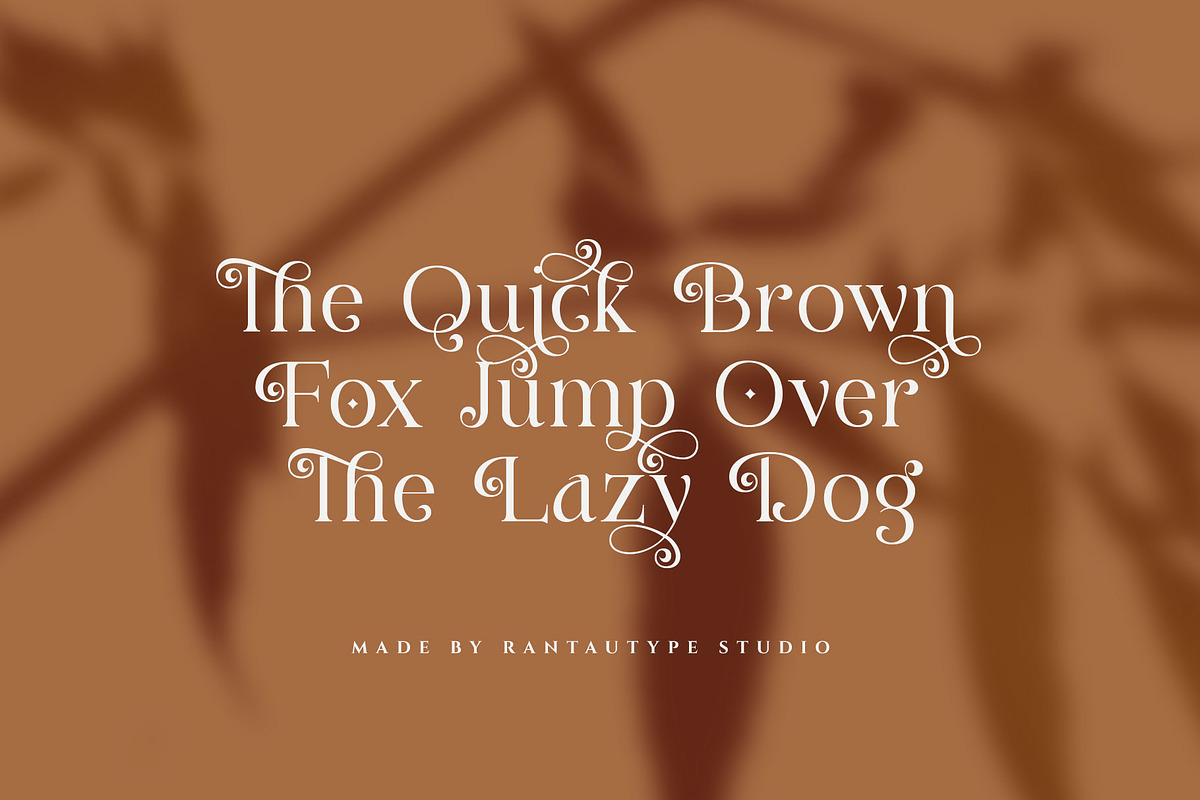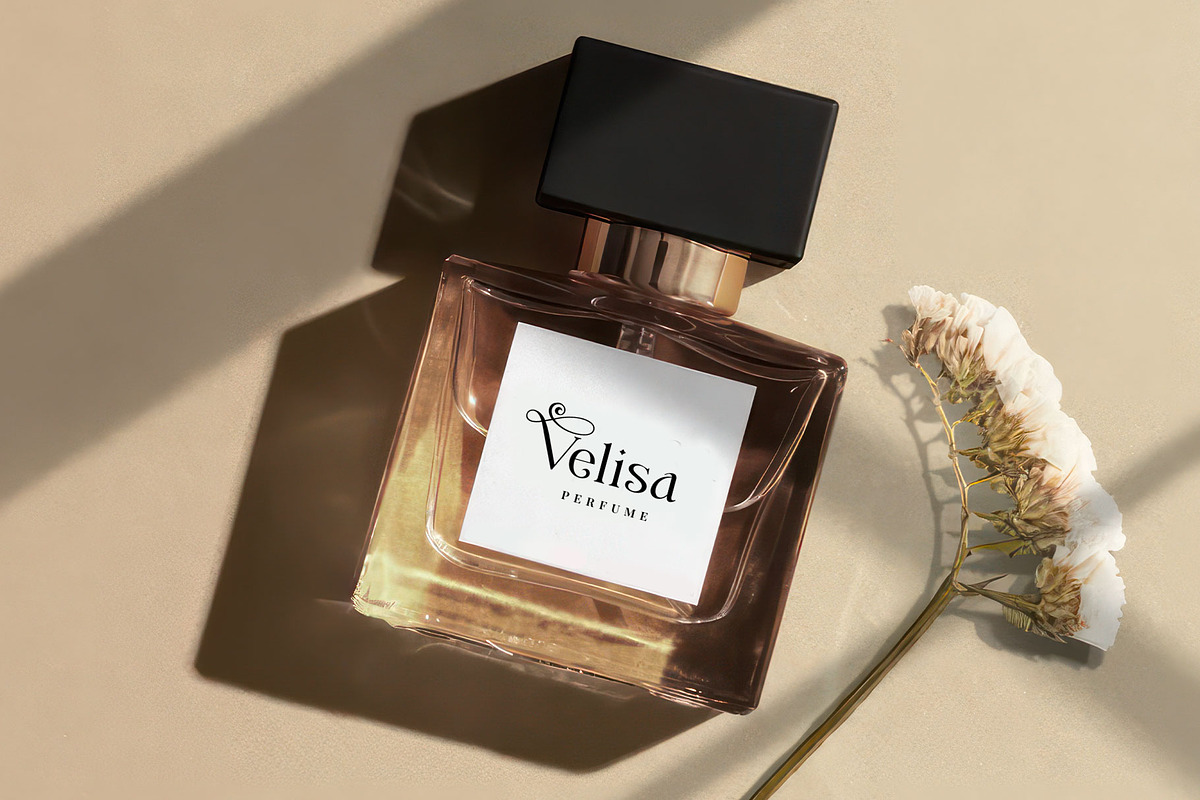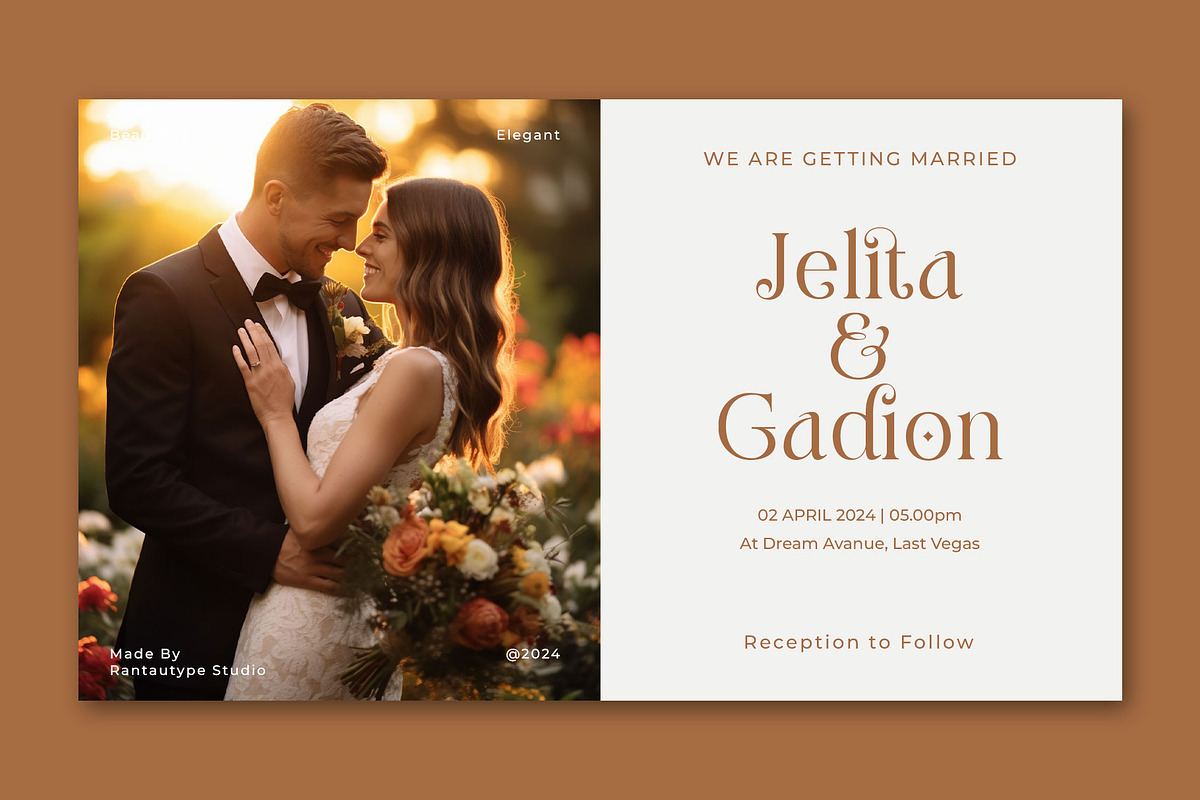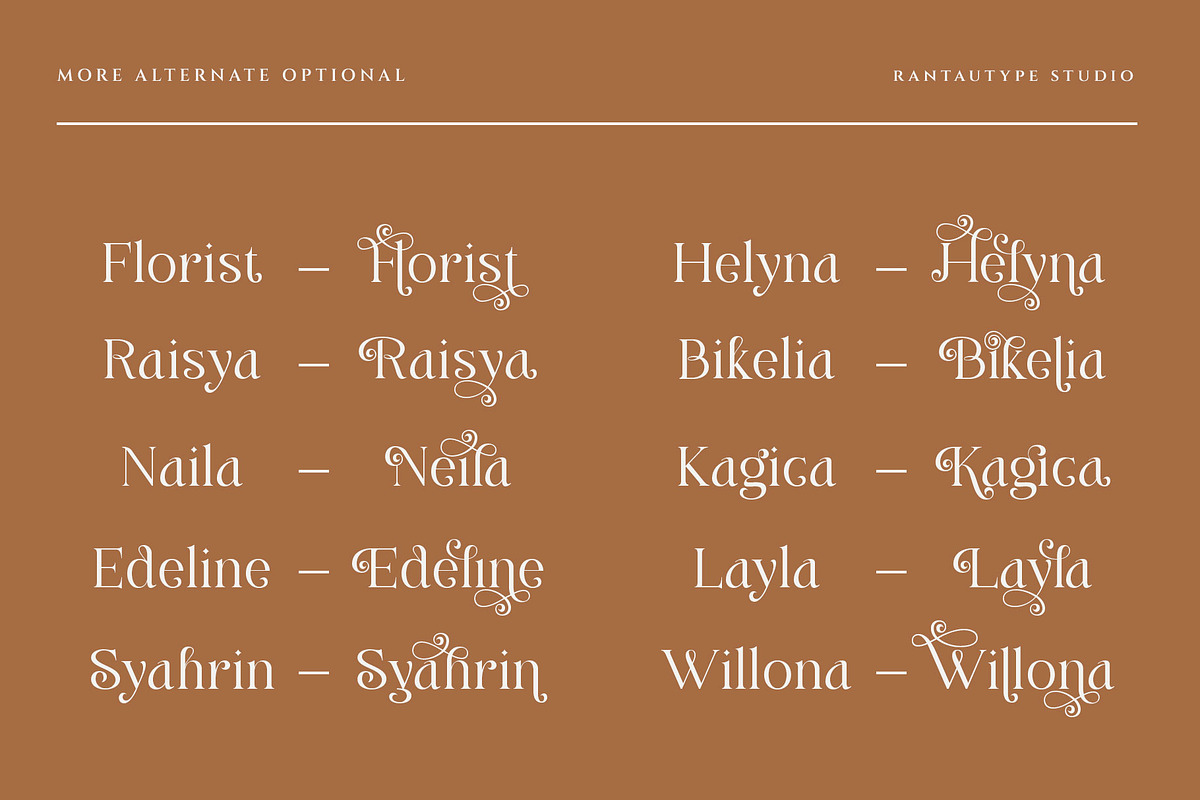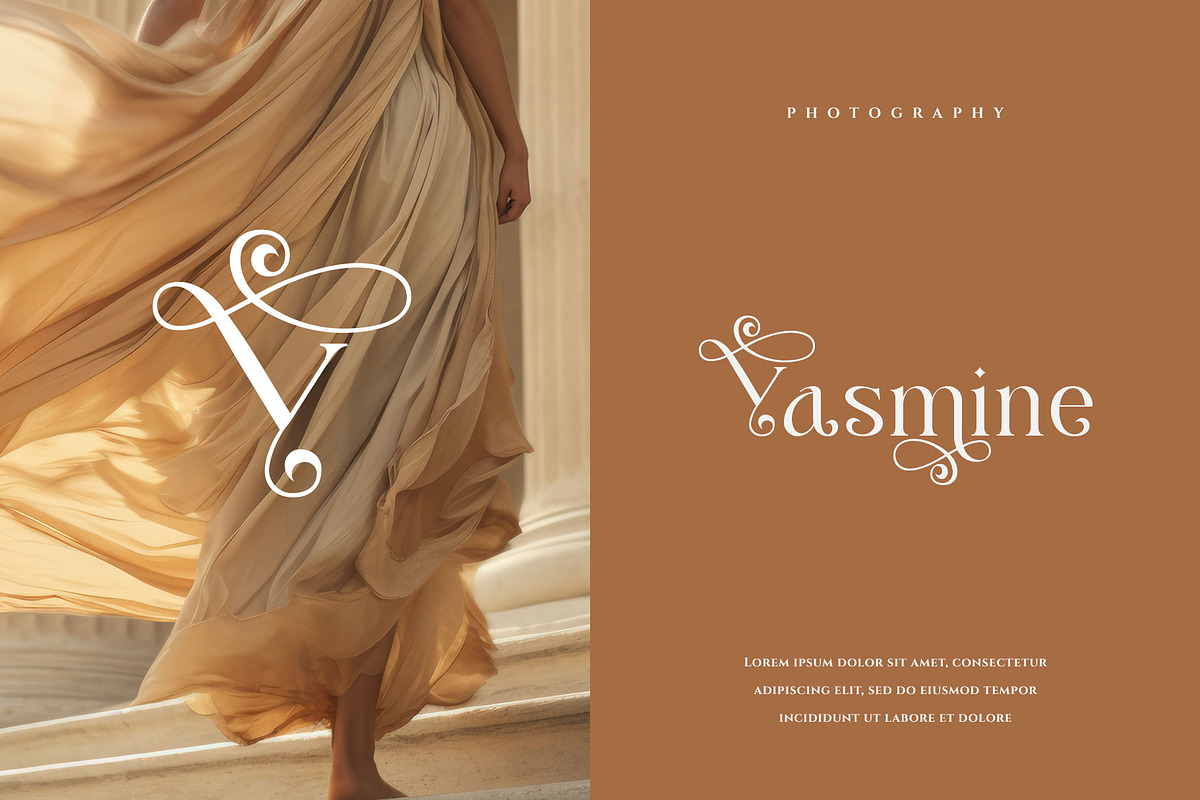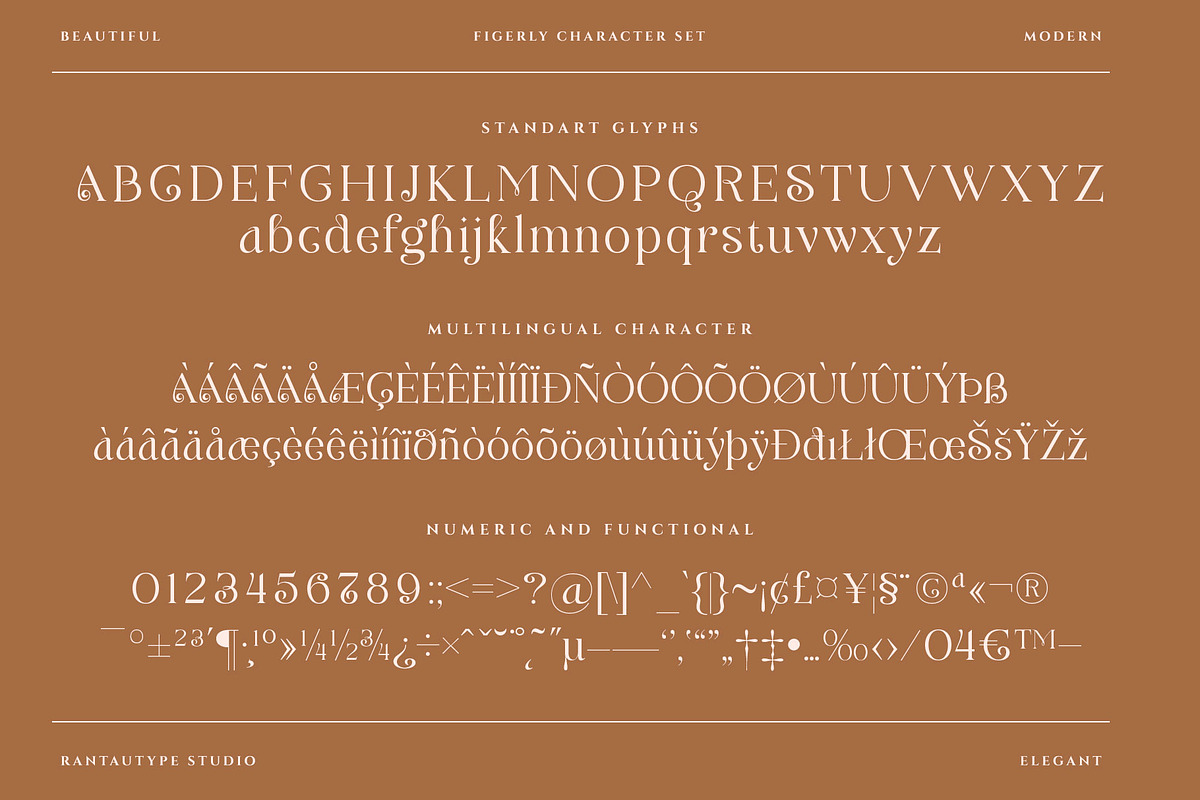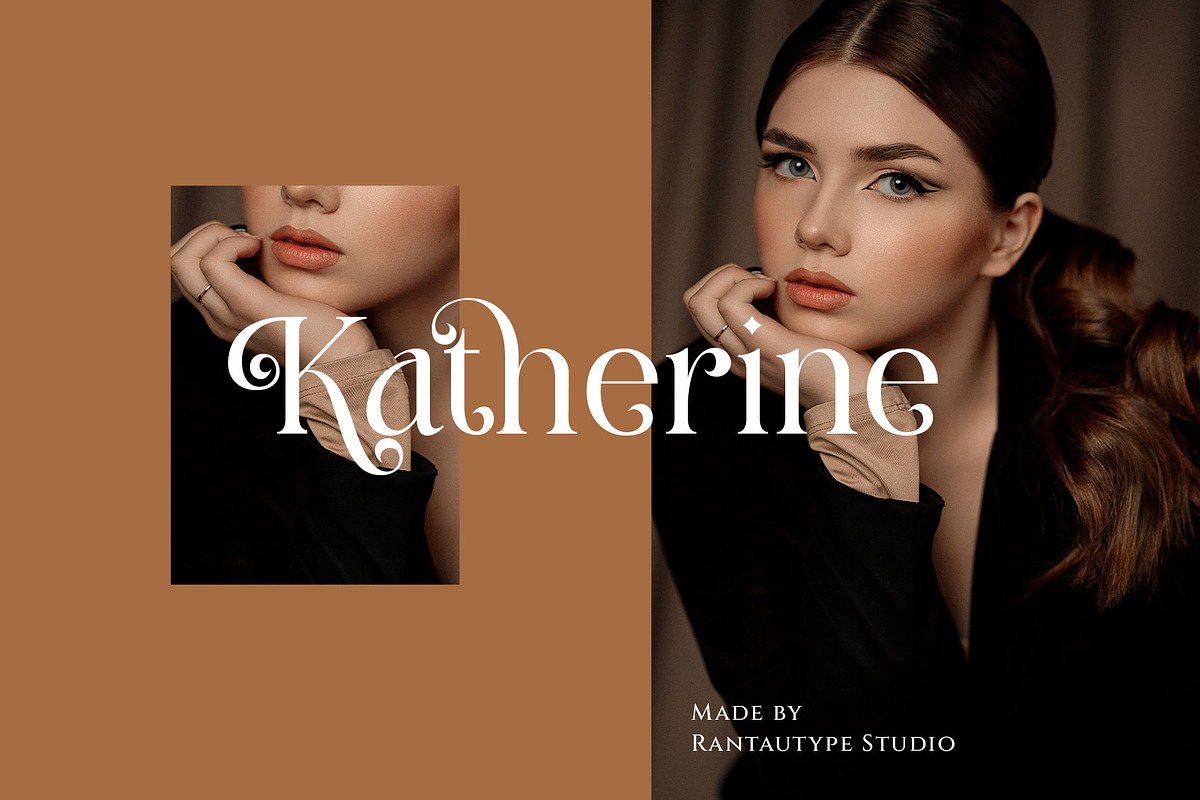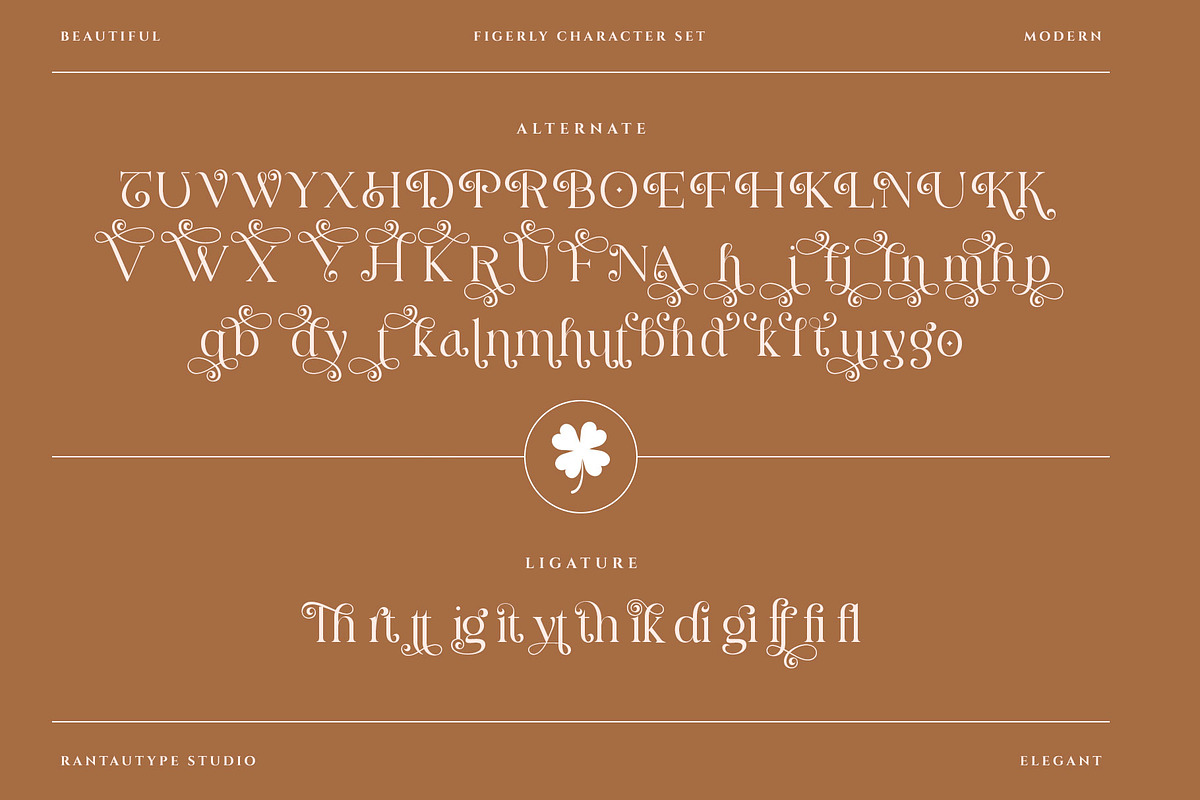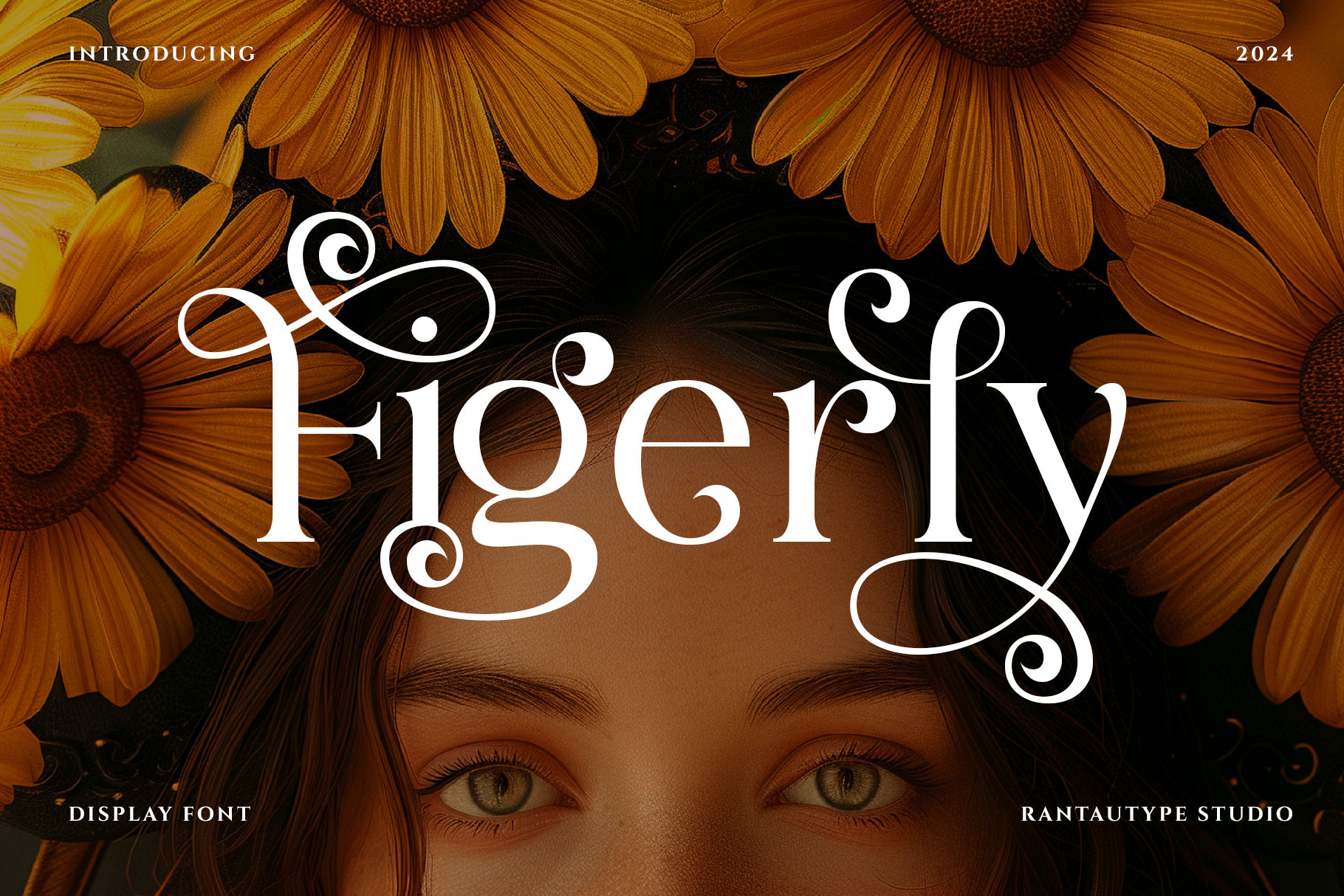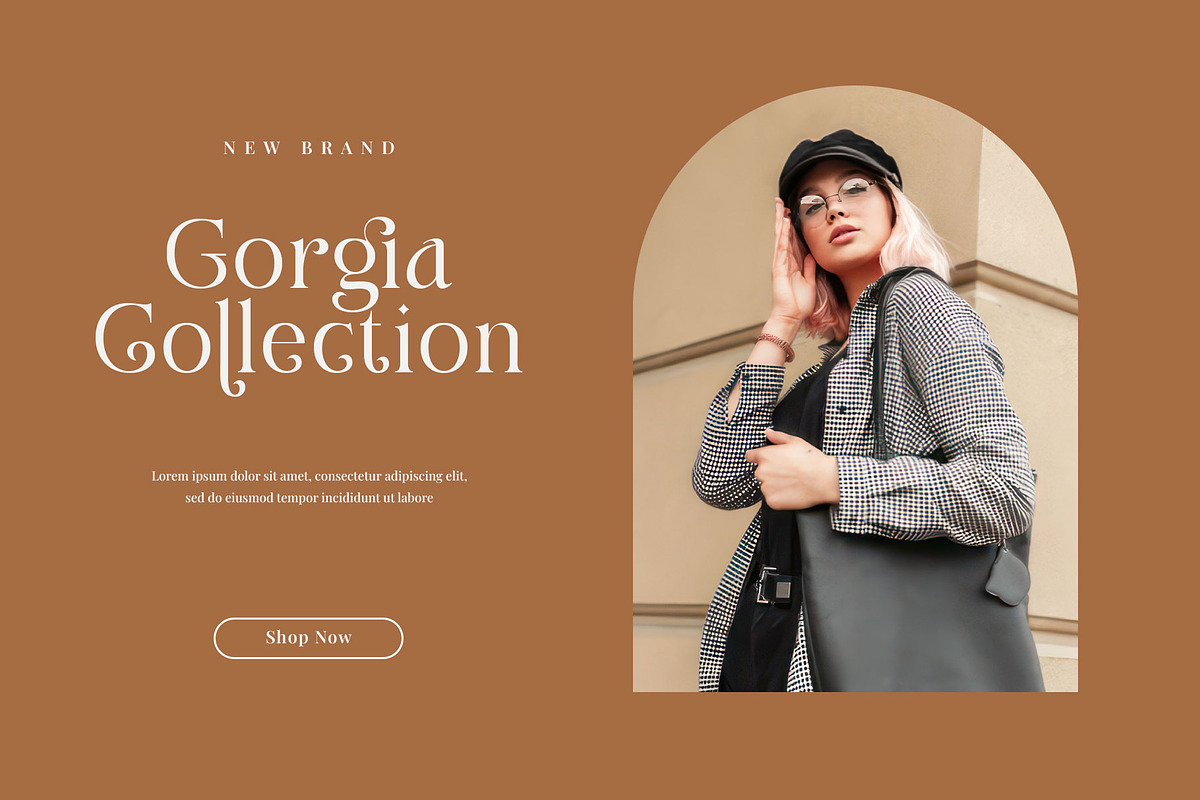
Figerly Modern Serif Font
Figerly is a feminine and beautiful display serif font that embraces elegance and grace. Its delicate curves and refined details create a sense of sophistication and femininity wrapped with a beautiful Alternate stylist. Helena Diary brings a touch of charm and sophistication to branding, editorial designs, and more. We keep this font looks fashionable, elegant, luxury, premium, modern, catchy and easy to use. With its versatility and contemporary appeal.
Figerly - separate in reguler and italic, is a beautiful choice for any creative endeavor, creating elegant, modern, chic, lifestyle design such as logos, title, cover, branding, invitations, wedding designs, display and magazine, social media posts, advertisements, printed quotes, product packaging, product designs, labels, photography, watermarks, special events and more project with beautiful taste.
- Standar character A-Z and a-z
- Alternate and Ligature
Fonts include Multilingual Support for: Afrikaans, Albanian, Asu, Basque, Bemba, Bena, Breton, Chiga, Cornish, Dutch, English, Estonian, Filipino, Finnish, Friulian, Galician, Gusii, Indonesian, Irish, Italian, Kabuverdianu, Kalenjin, Kinyarwanda, Luo, Luxembourgish, Luyia, Machame, Makhuwa-Meetto, Makonde, Malagasy, Manx, Morisyen, North, Ndebele, Nyankole, Oromo, Portuguese, Quechua, Romansh, Rombo, Rundi, Rwa, Samburu, Sango, Sangu, Scottish, Gaelic, Sena, Shambala, Shona, Soga, Somali, Spanish, Swahili, Swedish, Swiss, German.